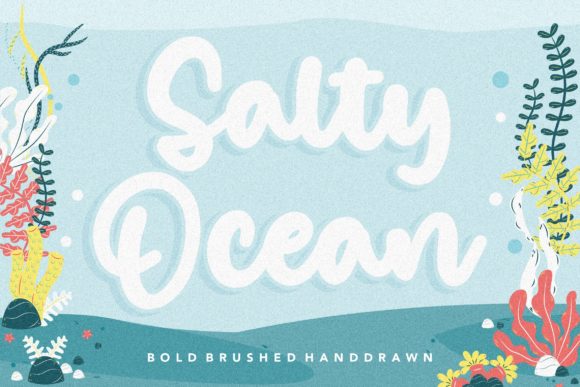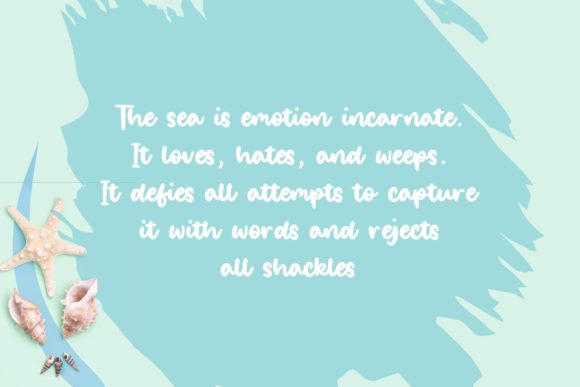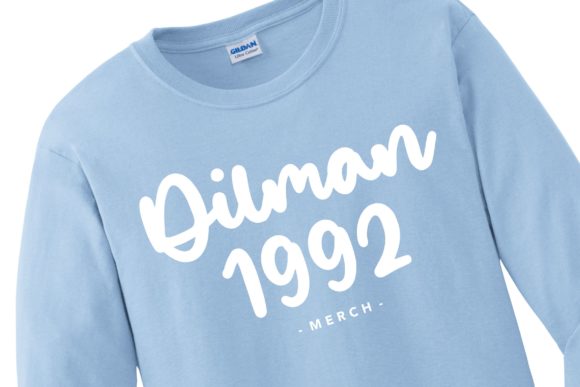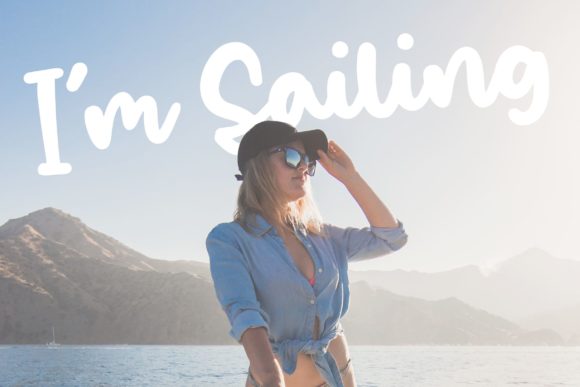
About Salty Ocean Font
“Salty Ocean” is a font that flows like gentle waves, carrying an elegant touch that effortlessly elevates your favorite projects. With its unique and timeless style, this font becomes a canvas for your creativity, allowing you to craft spectacular designs that capture attention and leave a lasting impact.
The beauty of “Salty Ocean” lies in its flowing handwritten script, reminiscent of the soothing rhythm of ocean tides. Its elegant touch adds a touch of sophistication to every stroke, creating a harmonious balance between distinctiveness and timelessness. Whether you’re working on a wedding invitation, a heartfelt quote, a captivating logo, or any other design that seeks to make a statement, this font is your ally in creating visuals that resonate.
As you infuse “Salty Ocean” into your designs, you’ll witness how its distinct style becomes a hallmark of your creative expression. It imbues your projects with an air of authenticity and allure, transforming them into visual experiences that captivate the viewer’s gaze. Whether it graces a serene wedding invitation, enhances a poignant quote, or adds elegance to a business logo, the font’s presence shines through, creating a connection with your audience.
Embrace “Salty Ocean” as a cherished companion in your design journey, utilizing its unique charm to bring your ideas to life. Regardless of your level of expertise, this font empowers you to create designs that are both striking and memorable. Its ability to convey elegance and timelessness ensures that your creations stand out and resonate with those who encounter them. Fall in love with the graceful allure of “Salty Ocean” and let it guide you in crafting designs that are nothing short of spectacular.